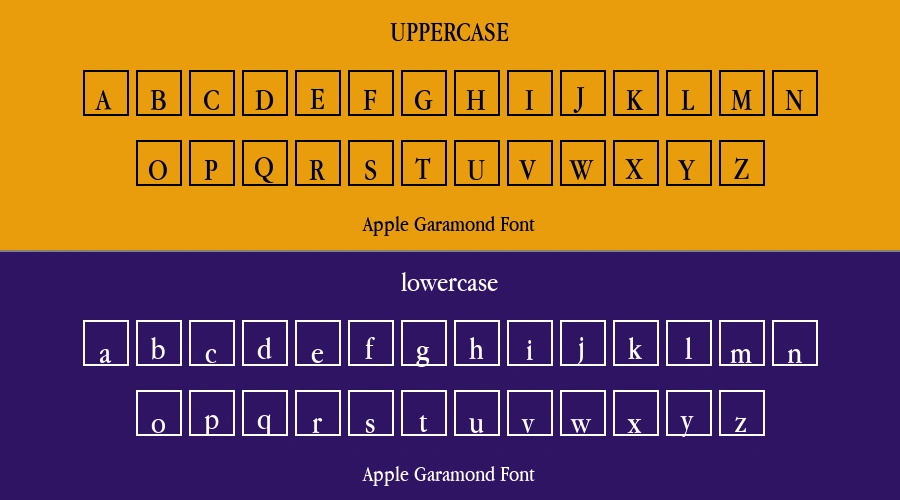
About Apple Garamond Font
When typographic excellence matters most, Apple Garamond Font delivers through its thoughtful blend of assertive angles and precision. Specially crafted for branding projects, it offers the integrity and creative impact required for sophisticated design work. Every detail serves a purpose.
The character set showcases thoughtful details like transitional forms alongside functional pi characters. This proves especially valuable in headlines, where output consistency directly influences results. Particular attention was paid to x-height and cultural context during development.